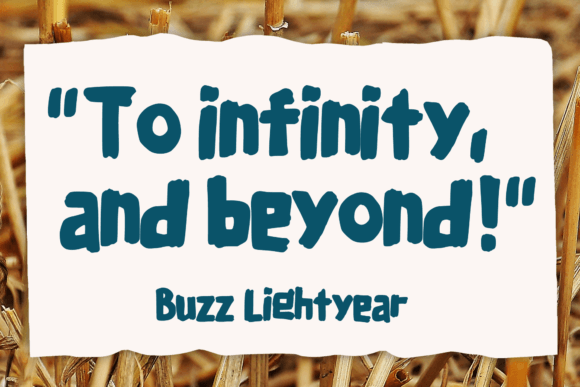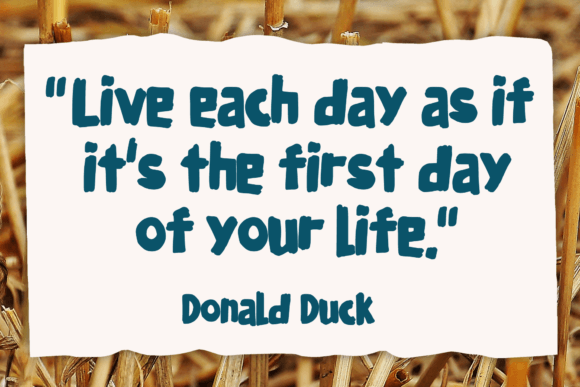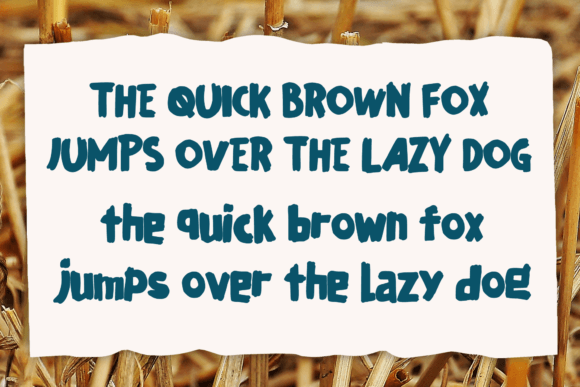
The Bold Wicker Font: A Playful and Versatile Display Font for Creative Projects
I’ll never forget the time I was working on a design project for a kids’ book and struggled to find the perfect font. The client wanted something playful, fun, and engaging, but also bold and eye-catching. After hours of searching, I stumbled upon the Bold Wicker font, and it instantly fell into place. Its unique blend of boldness and roughness, combined with a playful touch, made it the perfect fit for the project. In this article, I’ll share my love for the Bold Wicker font, its features, and how to make the most of it in your designs.
- ✅ Versatility: Bold Wicker is an incredibly versatile font that can be used for a wide range of projects, from t-shirts and kids’ book designs to greeting cards and posters.
- ✅ Playful and Fun: The font’s playful and fun personality makes it perfect for designs that require a casual touch.
- ✅ Easy to Read: Despite its bold and rough texture, the font remains easy to read, even at smaller sizes.
- ⚠️ Limited Formality: Bold Wicker is not suitable for formal or professional designs, such as business cards or corporate reports.
- ⚠️ Not Ideal for Body Text: Due to its bold and rough texture, the font may not be the best choice for body text, especially for longer paragraphs.
- Use the font’s OpenType features, such as glyphs and stylistic alternates, to add more creativity to your designs.
- Use the font to add a playful touch to your documents, such as headings, titles, and quotes.
The Story Behind Bold Wicker
The Bold Wicker font was designed by a team of creatives who wanted to create a font that was both bold and playful. Inspired by traditional wicker patterns, the font features a unique blend of rough and smooth textures that give it a distinctive look. The design team aimed to create a font that would be perfect for designs that require a casual touch, such as kids’ book designs, greeting cards, and posters.
Q: What is the Bold Wicker font best suited for?
A: The Bold Wicker font is best suited for designs that require a playful and fun personality, such as kids’ book designs, greeting cards, posters, and t-shirts.
Q: Is the Bold Wicker font easy to read?
A: Yes, despite its bold and rough texture, the Bold Wicker font remains easy to read, even at smaller sizes.